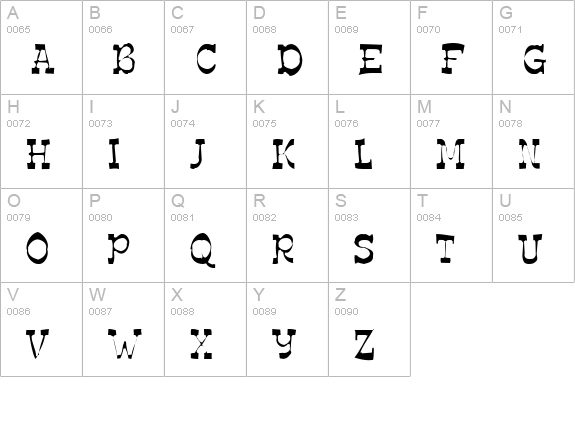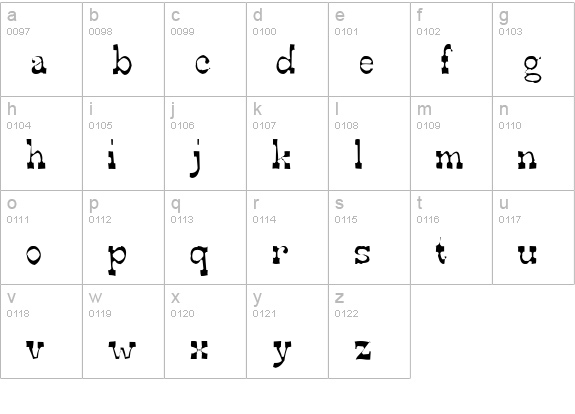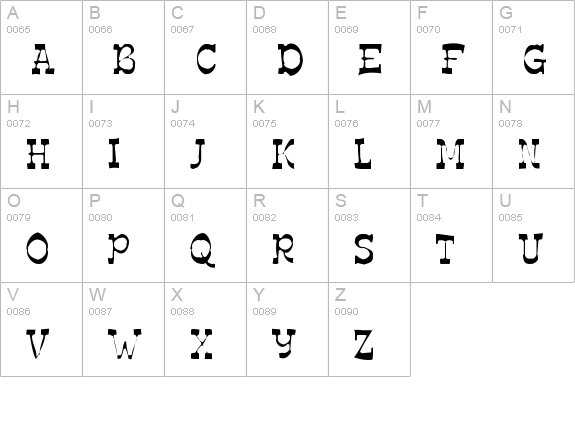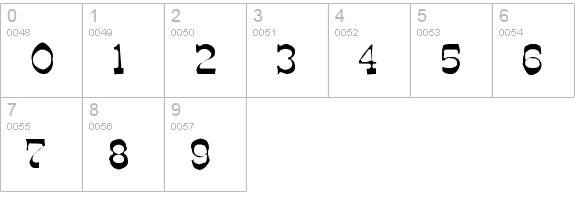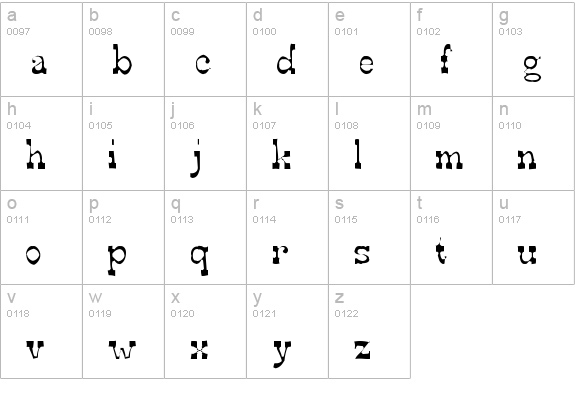
Edmunds Gaunt Font Details
Edmunds Gaunt font is a versatile and elegant typeface that exudes a sense of sophistication and charm. With its classic serifs and refined letterforms, this font is perfect for adding a touch of timeless beauty to any design project. Whether you're creating invitations, branding materials, or editorial layouts, Edmunds Gaunt font will bring a touch of class to your work. The best part? This exquisite font is available for free download at FontsMarket.com. Simply visit the website to access this stunning typeface and elevate your designs with its graceful presence. Don't miss out on the opportunity to enhance your projects with the beauty of Edmunds Gaunt font - download it today and let your creativity shine.